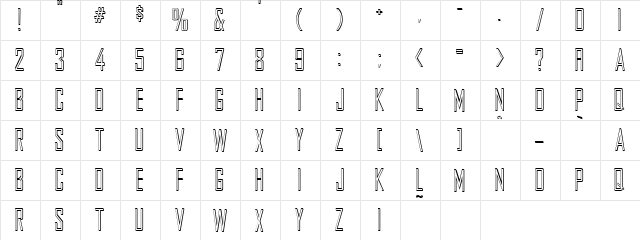
HollowGothic Caps Medium
Design Context for HollowGothic Caps Typeface
HollowGothic Caps takes a clean, functional approach — its unadorned letterforms prioritise legibility and work reliably across screen and print environments.
Font Pairing: Works well alongside a characterful serif or display font that can carry the expressive load while HollowGothic Caps handles the functional copy.
Pro Tip: Use HollowGothic Caps for UI labels, navigation, and short-form body copy where clean legibility is the priority.